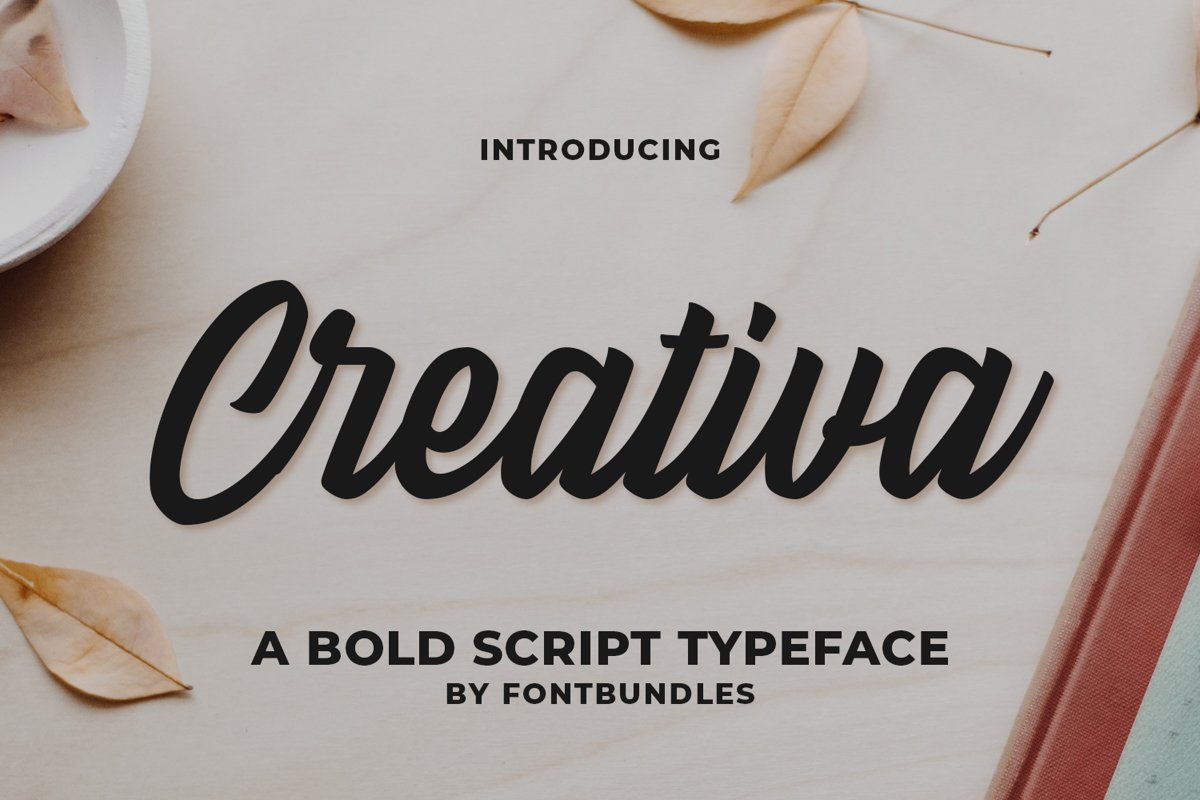
Creativa is a bold script typeface. Perfect for logo, logotype, quotes, emblem, label, header, merchandise, social media,  greeting cards and many more.